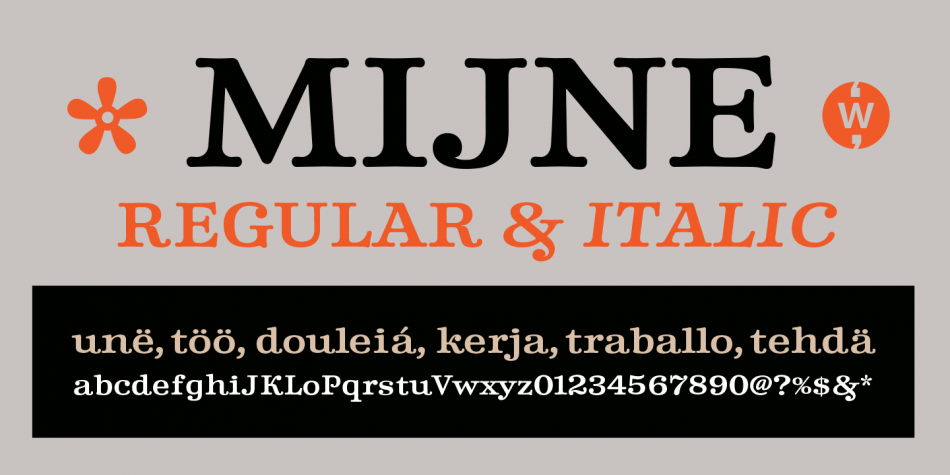
Designed by Robbie de Villiers, Mijne is a display serif font family. This typeface has two styles and was published by Wilton Foundry.
Wilton Foundry proudly presents Mijne Regular and Italic. Mijne comes in Opentype and supports many languages.